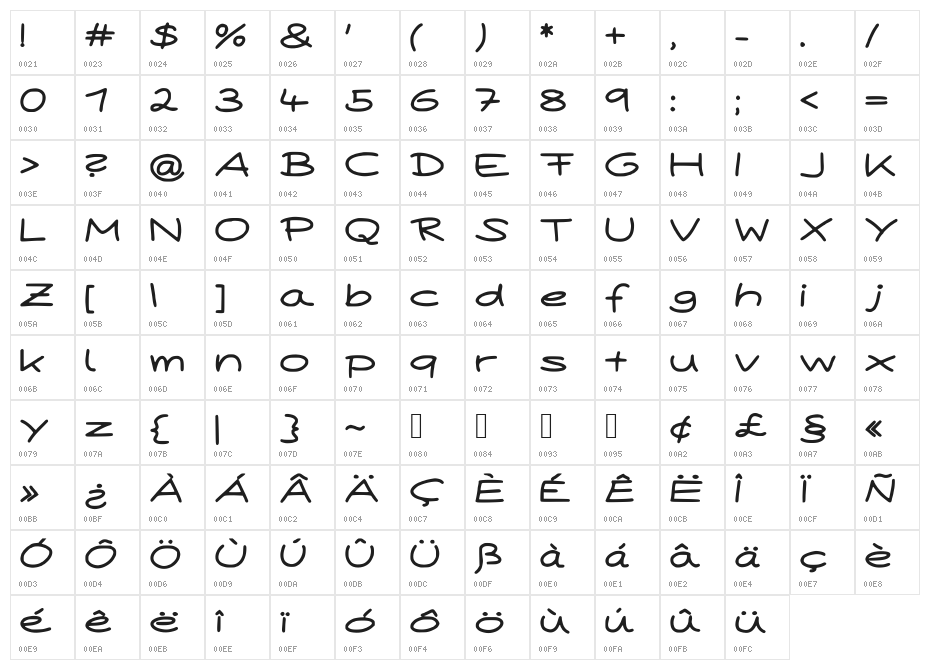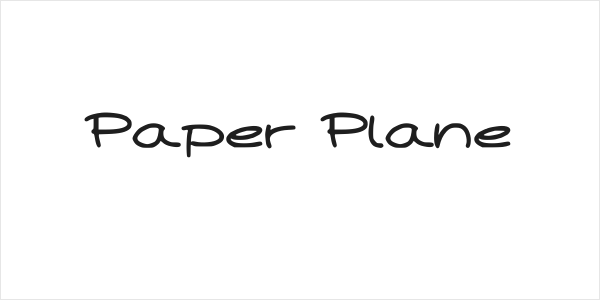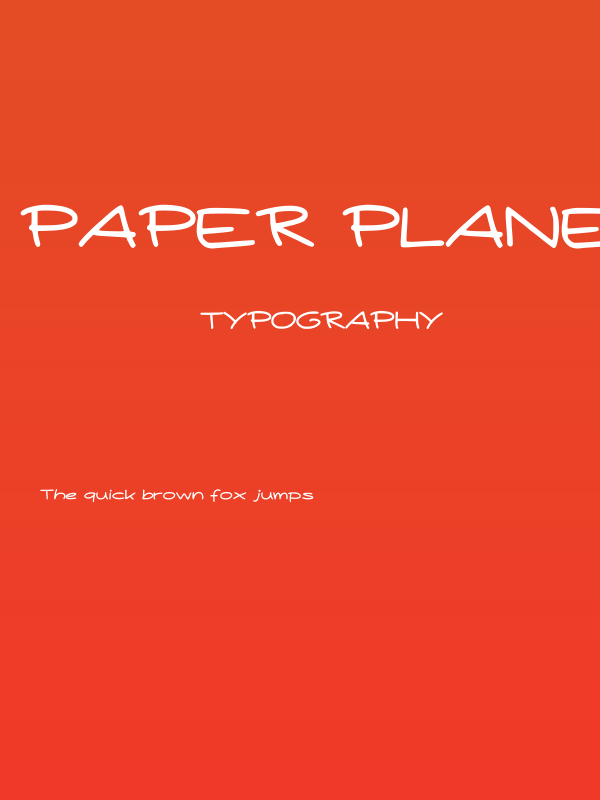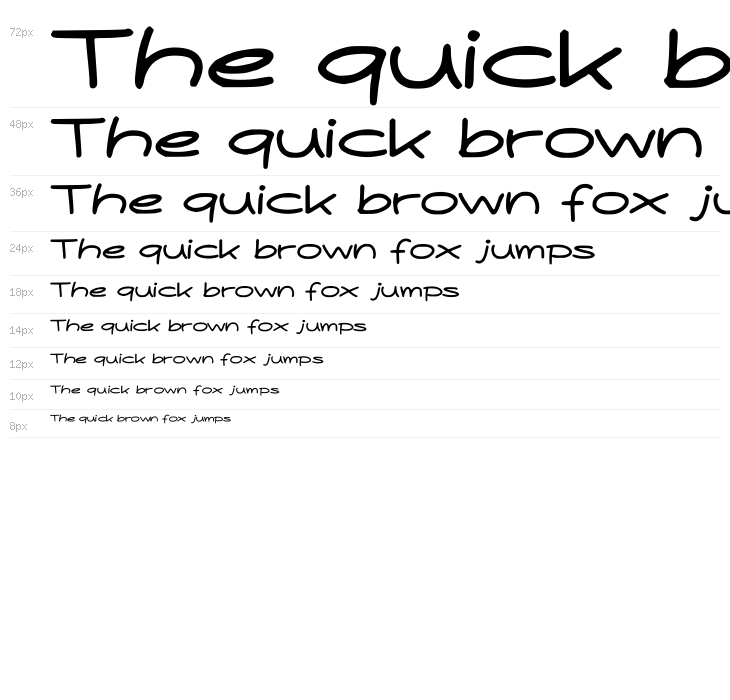
Paper Plane Font
Paper Plane Description
This playful and whimsical font features a handwritten style with smooth, flowing curves and a casual, friendly appearance. The letters are slightly slanted, giving them a dynamic and lively feel. The uppercase and lowercase characters maintain a consistent style, with rounded edges and a uniform stroke width that adds to the font's approachable nature. The numerals and special characters are designed to complement the letterforms, ensuring a cohesive look across all text. This font's informal style makes it ideal for projects that require a personal touch.